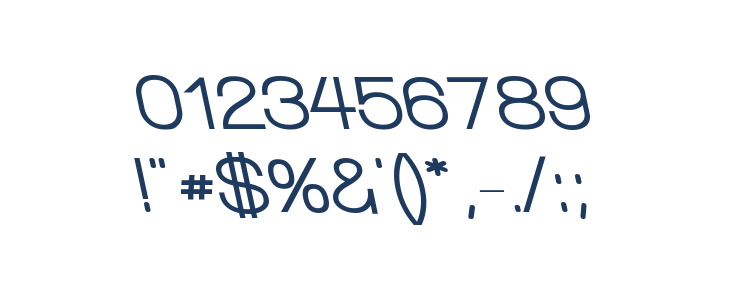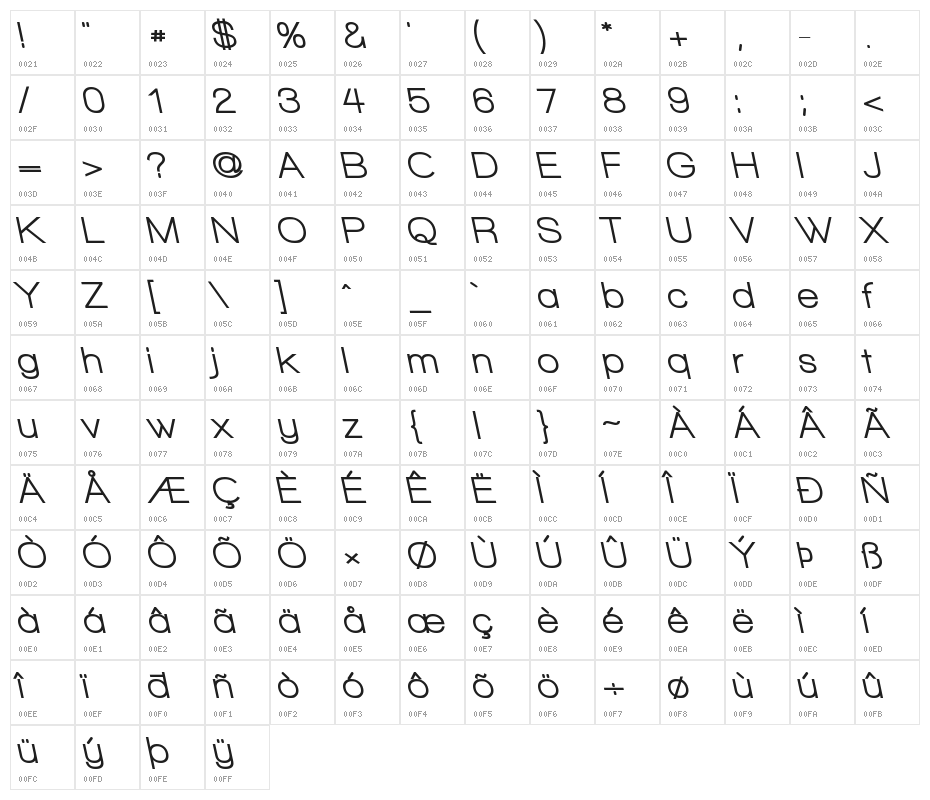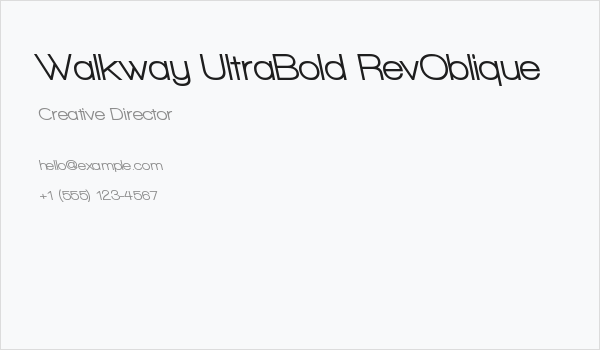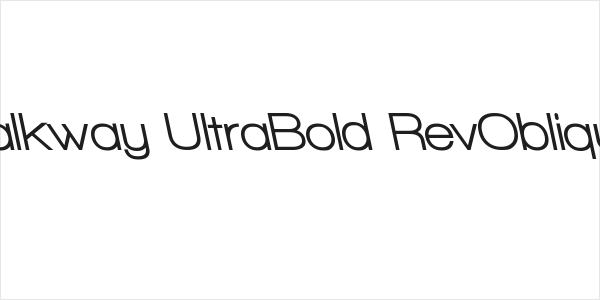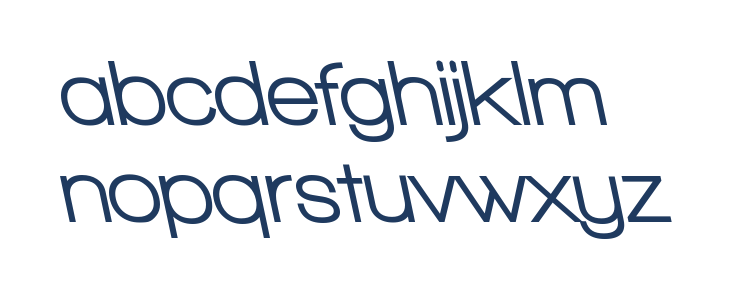
Walkway UltraBold RevOblique Font
Walkway UltraBold RevOblique Description
This font exhibits a modern and sleek design with ultra-bold weight and a reverse oblique style. The characters are clean and geometric, featuring smooth curves and sharp angles that create a dynamic and contemporary appearance. The uppercase letters are tall and commanding, while the lowercase letters maintain a consistent flow, enhancing readability. Numbers are clear and distinct, matching the overall boldness of the font. Special characters are well-integrated, maintaining the font's cohesive style. The reverse oblique slant adds a unique touch, making it stand out in various design contexts.
Use CaseHeadlines, Logos, Branding
Proposed ProjectsIdeal for branding, advertising, headlines, and modern web design projects.